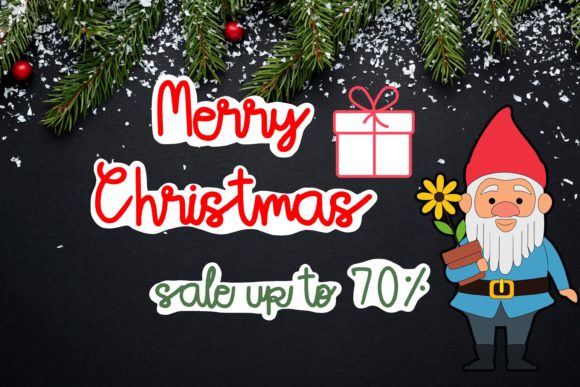
About Christmas Gnome Font
Christmas Gnome is a simple, lettered, joyful and beautiful script font. Fall for its ravishing style and use it to create gorgeous wedding invitations, beautiful stationary art, eye-catching social media posts, and much more.